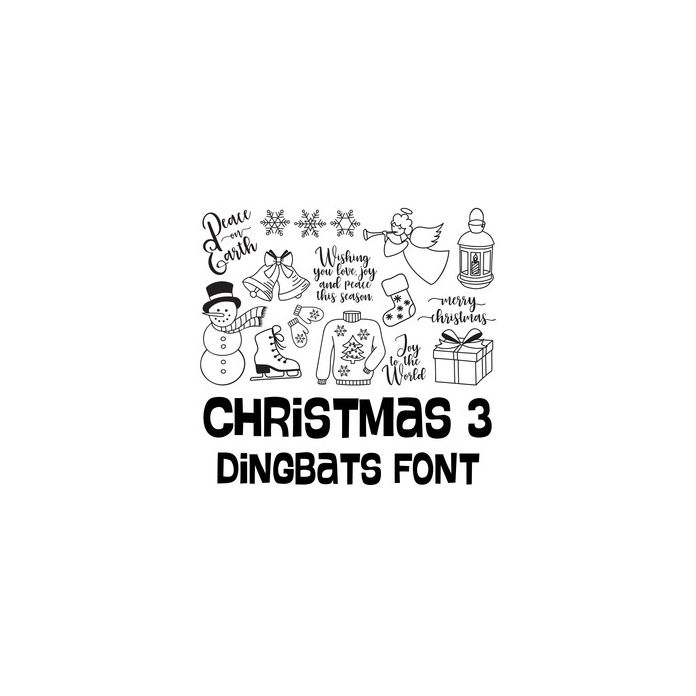
christmas 3 dingbats font
This cute dingbat font includes 26 Christmas icons and phrases that you can type + cut. Make adorable projects quickly and easily with the characters in this fun font. For ideas and inspiration visit www.loriwhitlock.com and www.shop.loriwhitlock.com. For Lori's video tutorials visit www.youtube.com/loriwhitlock. For a full tutorials list visit www.loriwhitlock.com/blog/tutorials. To learn how to use dingbat fonts watch this video: https://www.youtube.com/watch?v=TLIqETMzHdo